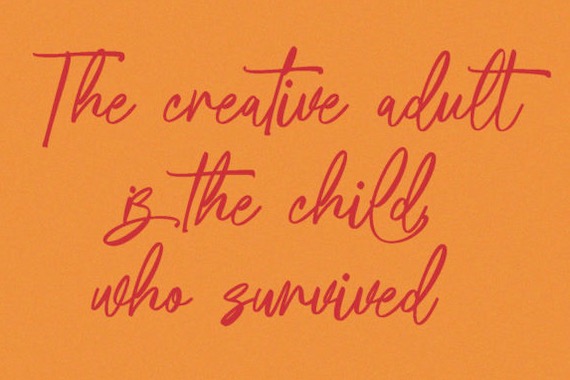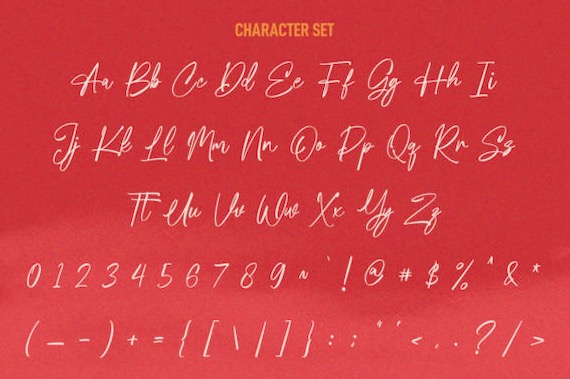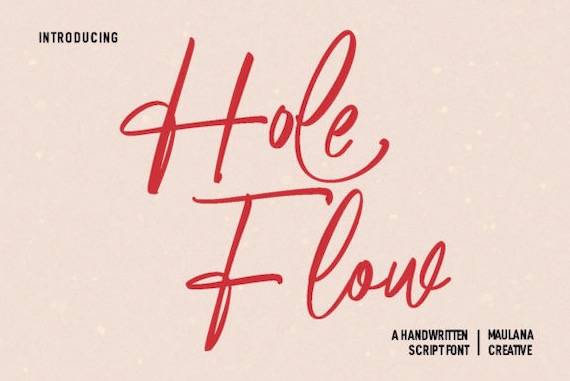
This is a new modern handwritten font, Hole Flow from Maulana Creative. It’s a subtle & fashionable script font that is crafted with great care for maximum results. It will add elegance and class to any of your design projects.
Hole Flow Handwritten Signature Font